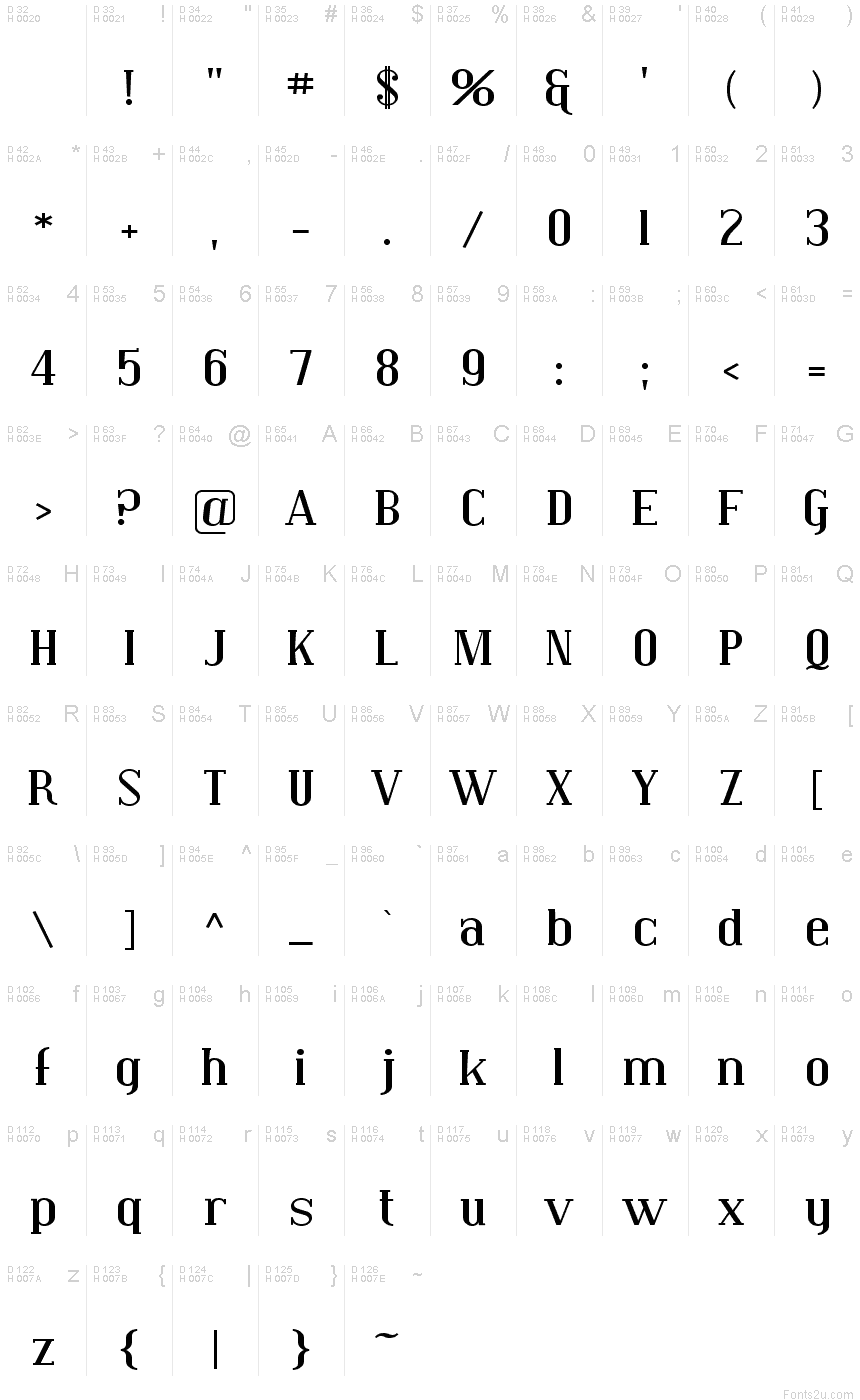
SF Covington Exp by Derek Vogelpohl of ShyFoundry is a free high-contrast serif font with a poised, formal air. Broad vertical strokes meet hairline curves and crisp, restrained serifs. The generous capitals and narrower lowercase forms give the lettering an unusual change of scale.
Fashion and fine arts are natural subjects for this refined face. It suits magazine covers, fragrance packaging, gallery posters, and formal invitations. Across these settings, sharp contrast and stately proportions recall engraved lettering.
SF Covington Exp